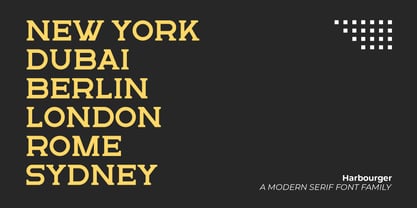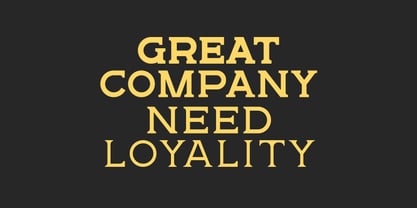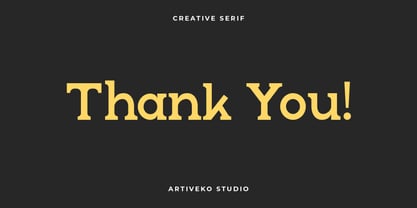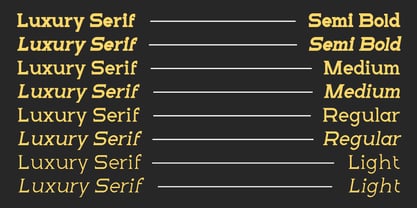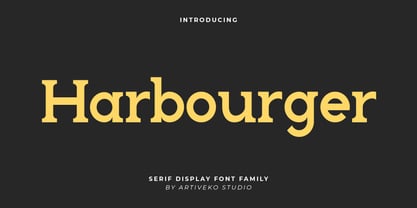
Harbourger
by Artiveko
The Harbourger Font Family was designed by Iwan Alwan and published by Artiveko. Harbourger contains 8 styles and family package options.
Harbourger is a modern serif font designed with a blend of elegance and contemporary appeal. Featuring refined letterforms and balanced proportions, this typeface is perfect for luxury branding, editorial layouts, packaging, and high-end design projects. With multilingual support, ligatures, and alternates, Harbourger brings sophistication and versatility, making it an ideal choice for projects that demand a timeless yet modern aesthetic.
Designers: Iwan Alwan
Publisher: Artiveko
Foundry: Artiveko
Design Owner: Artiveko
Harbourger